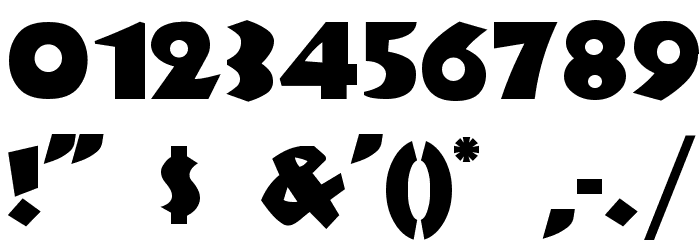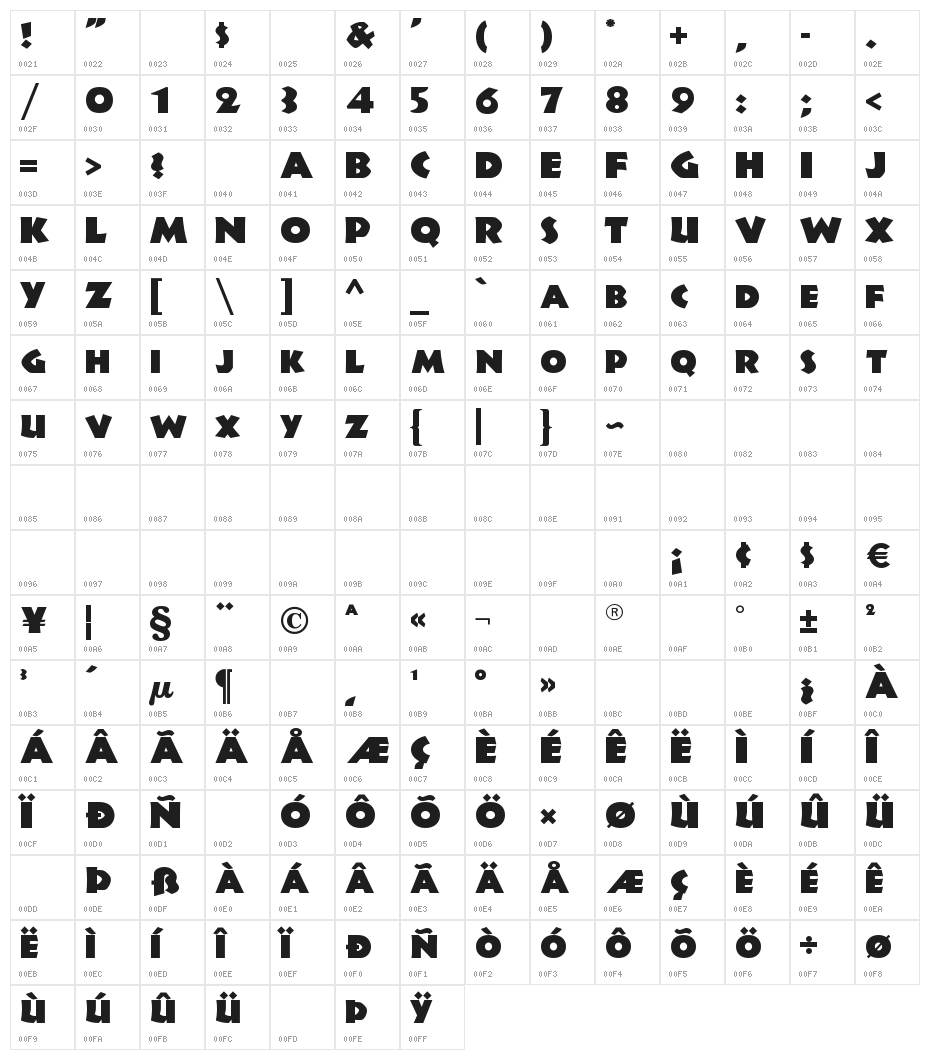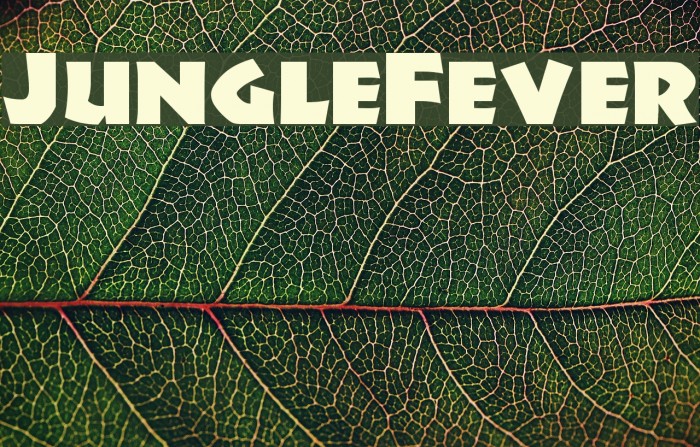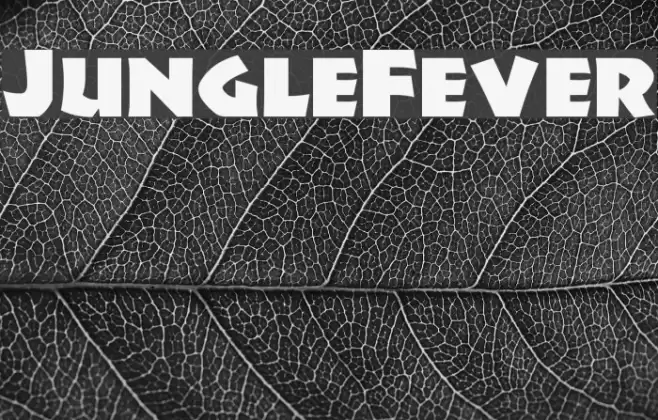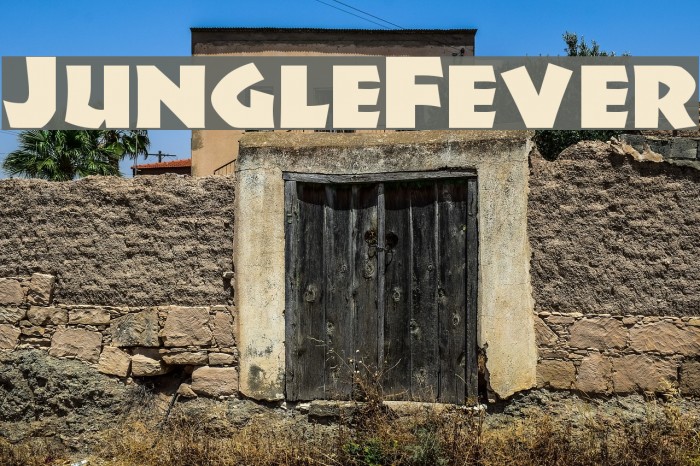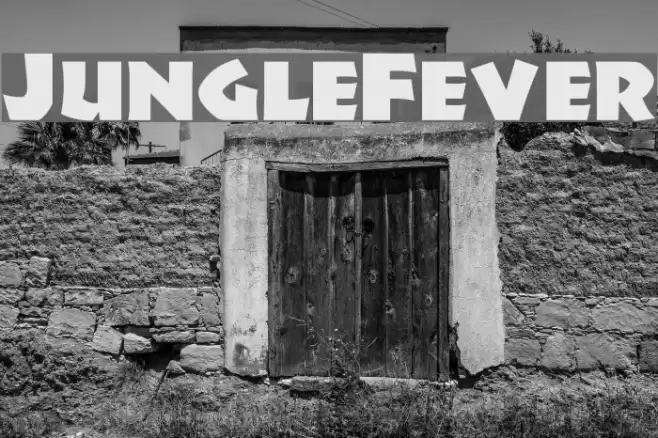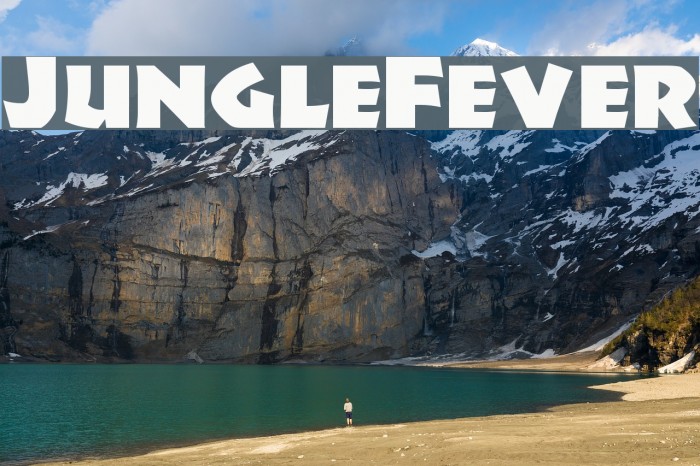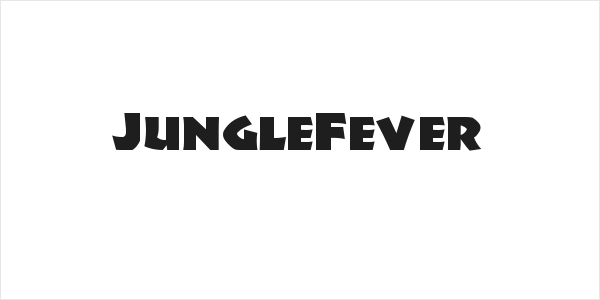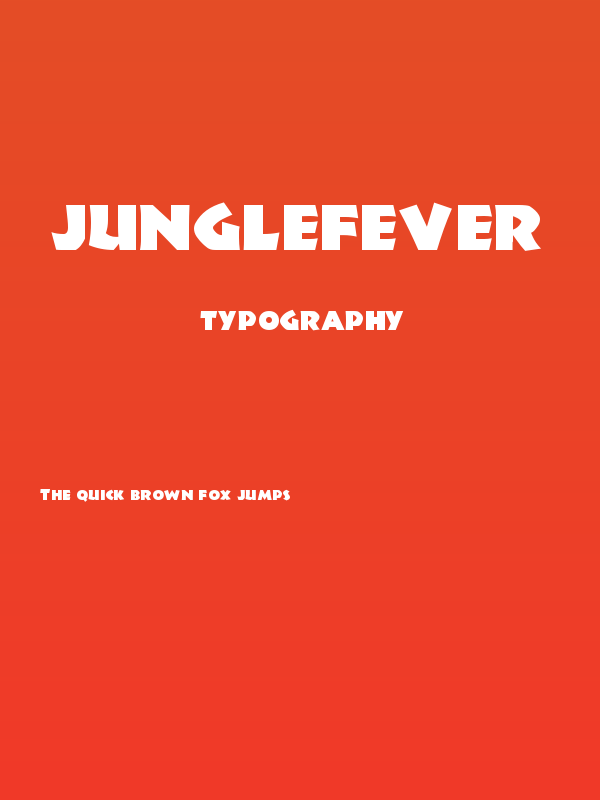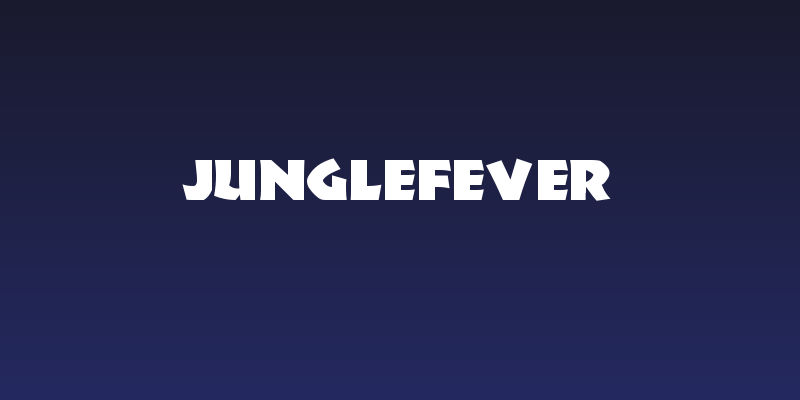
JungleFever Font
JungleFever Description
This font features a bold and adventurous style, reminiscent of jungle themes and exotic locales. The characters are robust and angular, with a playful yet assertive presence. The uppercase and lowercase letters maintain a consistent weight, contributing to a cohesive and striking appearance. The numbers and special characters follow the same bold design, ensuring uniformity across all text elements. This font's unique style is perfect for projects that require a sense of adventure and excitement.
| Proposed Projects | Ideal for adventure-themed posters, travel brochures, children's book covers, and branding for outdoor events. |